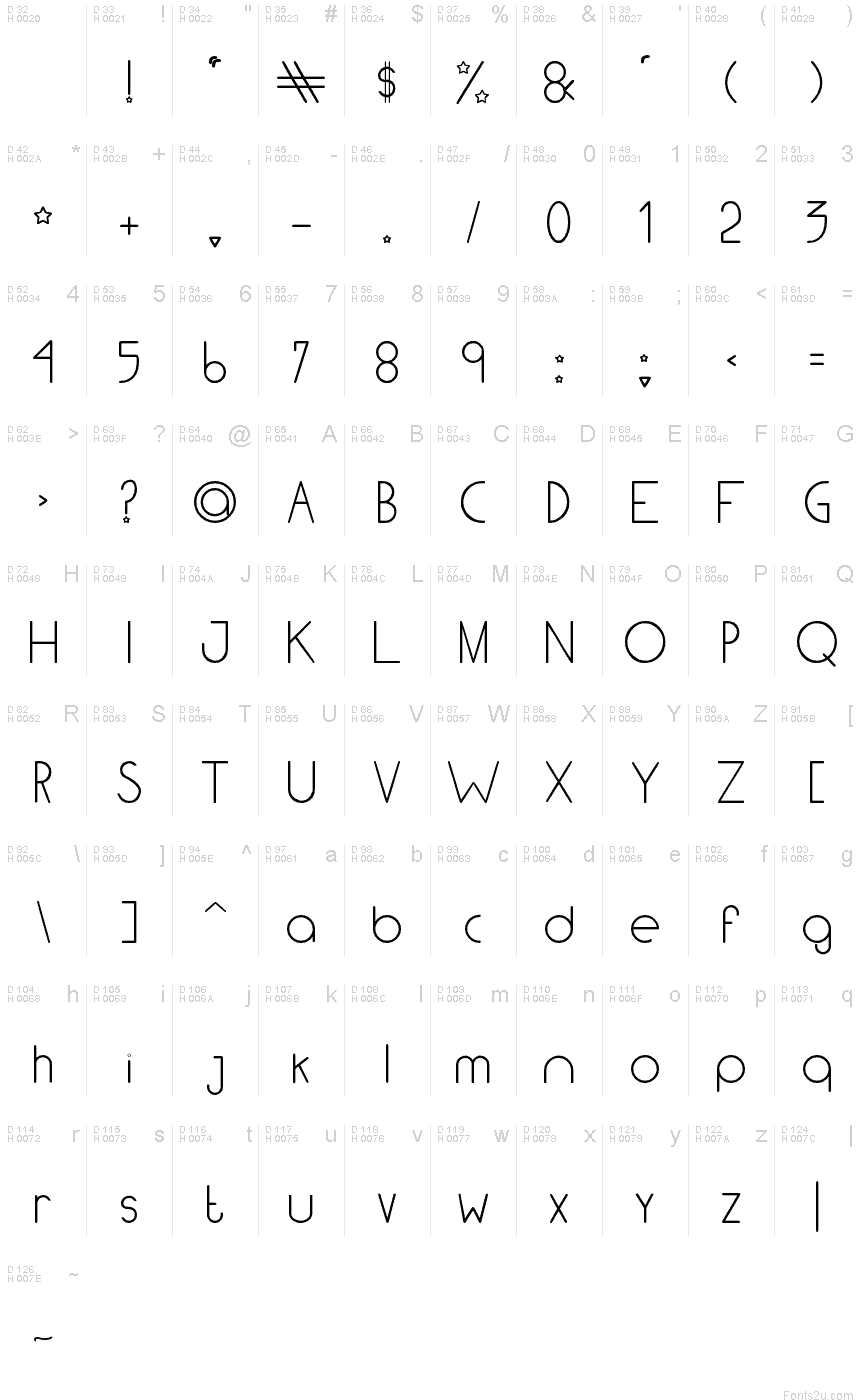
Light TFB is a free groovy display font with extremely slender strokes and towering, open letterforms that make an airy silhouette. Its rounded curves, stretched proportions, and shifting widths recall experimental 1970s lettering, yet the clean monoline drawing keeps the result light and contemporary.
Fashion posters are its most convincing setting, since the elongated shapes can supply a stylish editorial focus. It also suits album artwork and boutique branding. For beauty packaging and event invitations, the fine lines and unusual proportions echo retro fashion illustration rather than a heavy period imitation.